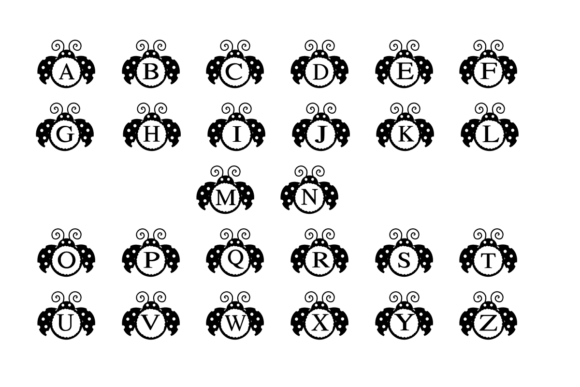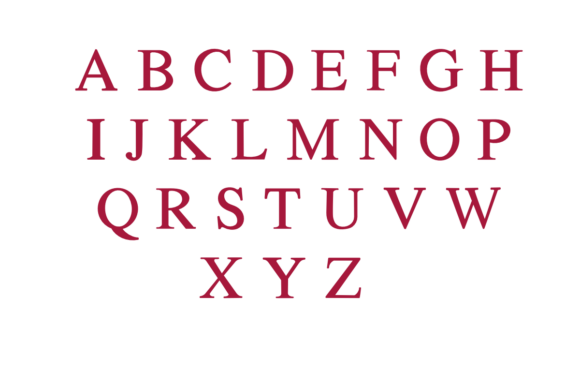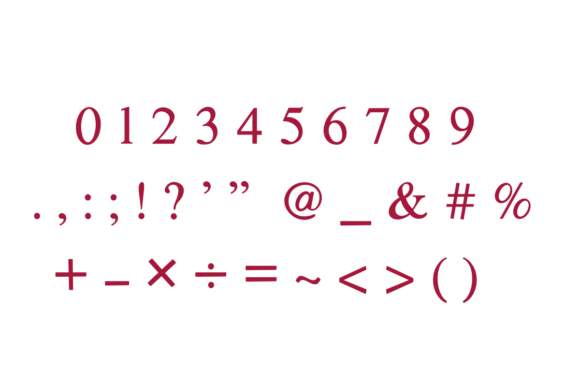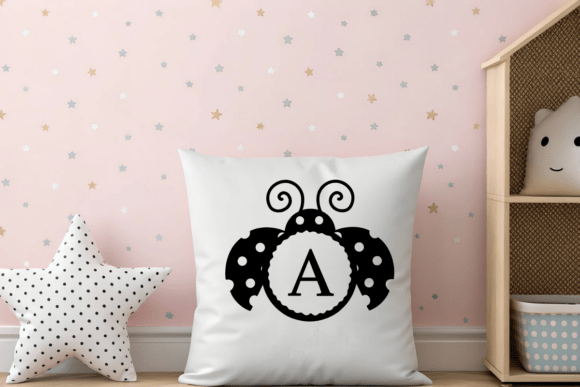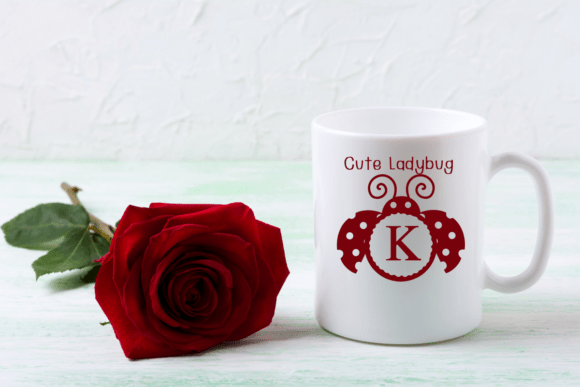
Cute Ladybug Monogram Font: Add a Touch of Whimsy to Your Designs
Are you a designer or crafter looking for a unique and playful font to add to your creative projects? Look no further than the Cute Ladybug Monogram Font! This lovely decorative font is sure to bring a touch of whimsy and charm to your designs, and we’re excited to share all the details with you.
What is the Cute Ladybug Monogram Font?
The Cute Ladybug Monogram Font is a delightful font that features adorable ladybug-inspired monograms. Each letter is carefully designed to showcase a ladybug’s sweet and charming personality, making it perfect for a variety of creative projects. Whether you’re working on a DIY craft, a graphic design project, or a digital illustration, this font is sure to add a pop of personality and fun.
Key Features of the Cute Ladybug Monogram Font
- Unique and Playful Design: The Cute Ladybug Monogram Font features a one-of-a-kind design that’s sure to stand out in any project. The ladybug-inspired monograms are carefully crafted to be both cute and elegant.
- Wide Range of Uses: This font is perfect for a variety of creative projects, including DIY crafts, graphic design, digital illustrations, and more.
- High-Quality Design: The font is designed with high-quality graphics, ensuring that it looks great in any project.
How to Use the Cute Ladybug Monogram Font
- Create Custom Monograms: Use the Cute Ladybug Monogram Font to create custom monograms for your projects. Simply type in the letter or letters you want to use, and the font will do the rest.
- Add a Personal Touch: Add a personal touch to your designs with the Cute Ladybug Monogram Font. Use it to create custom titles, headings, or even a logo.
- Make it Whimsical: Add a touch of whimsy to your designs with the Cute Ladybug Monogram Font. Use it to create playful and eye-catching graphics, such as stickers, labels, or even a custom party favor.
Benefits of Using the Cute Ladybug Monogram Font
There are many benefits to using the Cute Ladybug Monogram Font in your creative projects. Here are just a few:
- Adds a Touch of Personality: The Cute Ladybug Monogram Font adds a touch of personality and whimsy to your designs, making them stand out from the crowd.
- Versatile: The Cute Ladybug Monogram Font can be used in a variety of creative projects, from DIY crafts to graphic design.
- High-Quality Design: The font is designed with high-quality graphics, ensuring that it looks great in any project.
Tips and Tricks for Using the Cute Ladybug Monogram Font
Here are a few tips and tricks for getting the most out of the Cute Ladybug Monogram Font:
- Experiment with Different Colors: Try out different colors and combinations to see what works best for your project.
- Mix and Match: Mix and match the Cute Ladybug Monogram Font with other fonts and graphics to create a unique look.
- Use it in Combination with Other Elements: Use the Cute Ladybug Monogram Font in combination with other design elements, such as images or textures, to add depth and interest to your design.